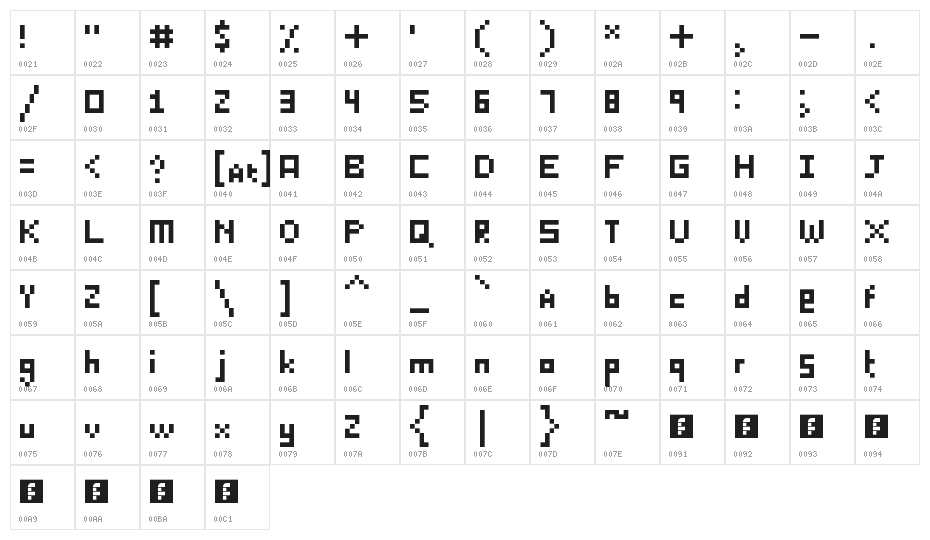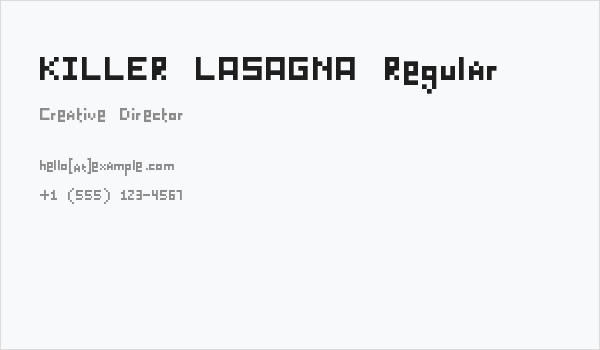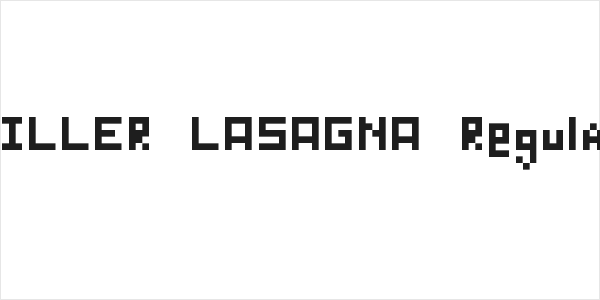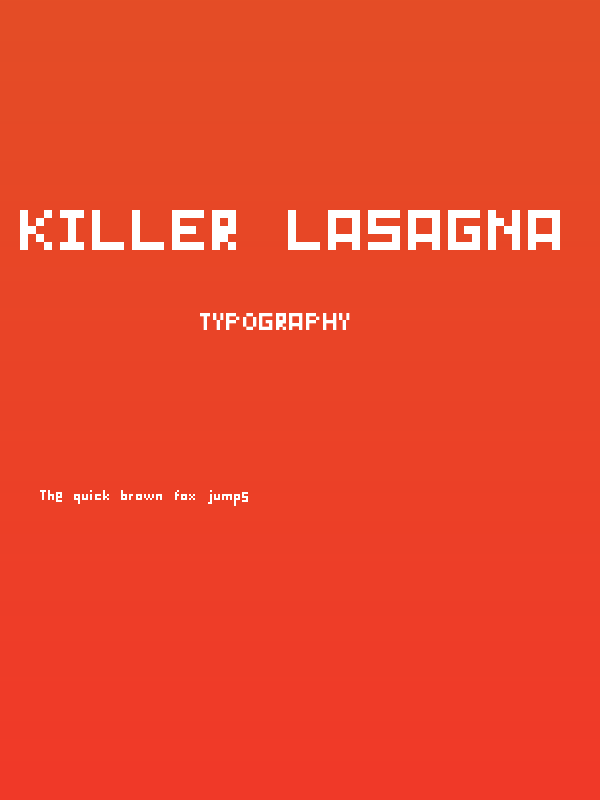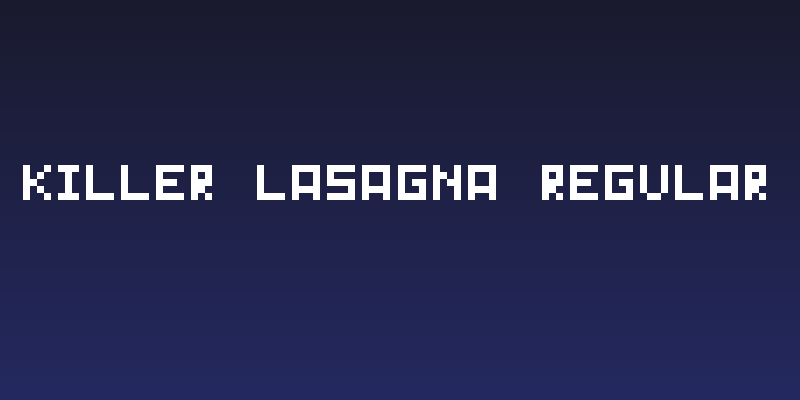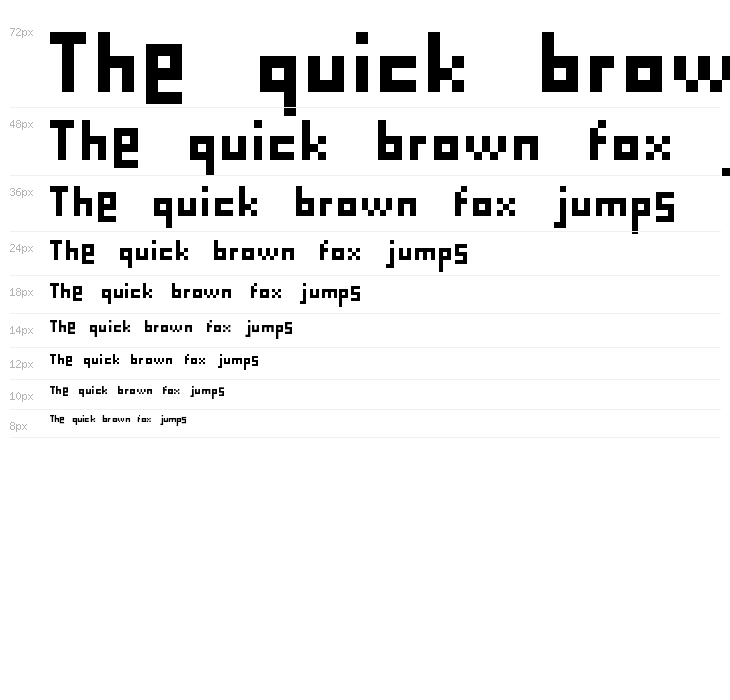
KILLER LASAGNA Regular Font
KILLER LASAGNA Regular Description
This font features a bold, pixelated design reminiscent of early digital and arcade aesthetics. Each character is constructed with a blocky, grid-like structure, giving it a distinctly retro and digital feel. The uppercase and lowercase letters maintain a consistent height, enhancing its uniform appearance. Numbers and special characters follow the same pixelated style, ensuring a cohesive look across all glyphs. This font is ideal for projects that aim to evoke nostalgia for classic video games or digital interfaces.
| Overall Style | Retro, Digital |
| Use Case | Headlines, Logos, Digital Art |
| Proposed Projects | Ideal for retro video game designs, digital art projects, or any creative work that seeks to capture a vintage digital feel. |